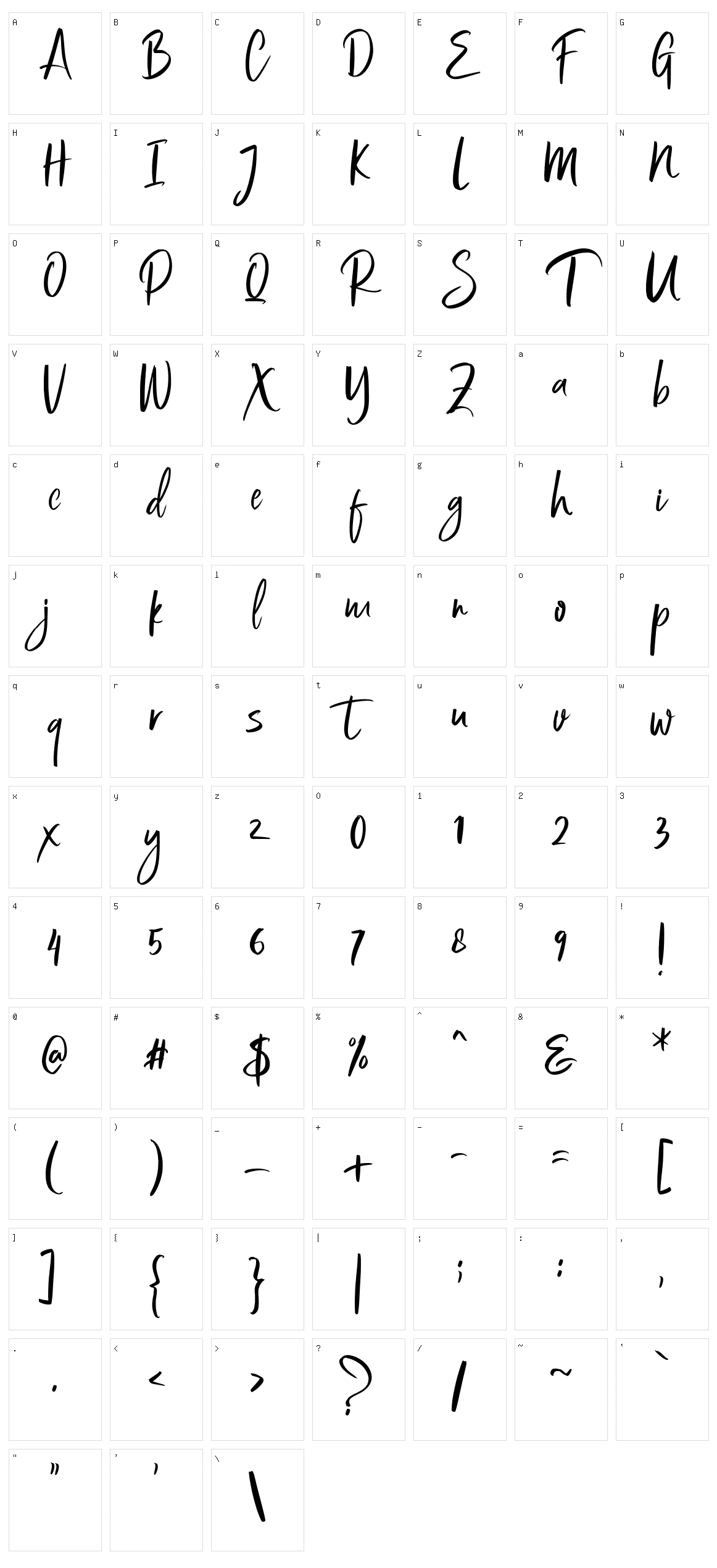
The free font Bestania is carefully designed by Debut Studio, showcasing a thoughtful balance of creativity and usability and falls under the Script font style. When you download the ZIP file, it contains only 137.83 KB of font files, making it lightweight and quick to download. Please review the license details below to understand permitted usage and distribution rights. If license information is not available, we recommend using this font for personal projects only or contacting the author directly for commercial usage permissions.